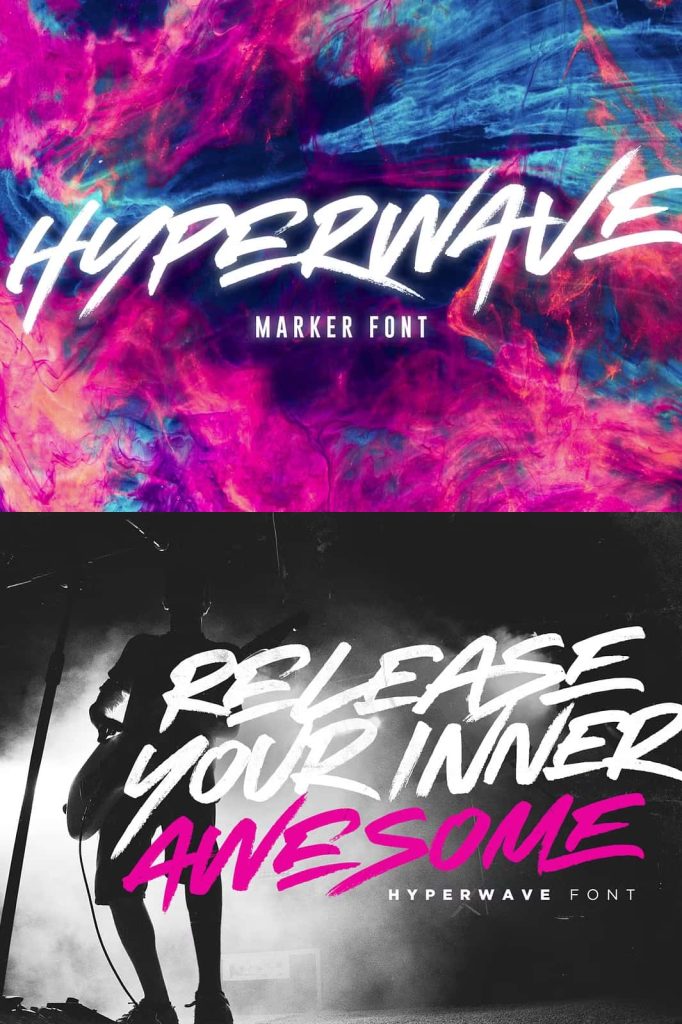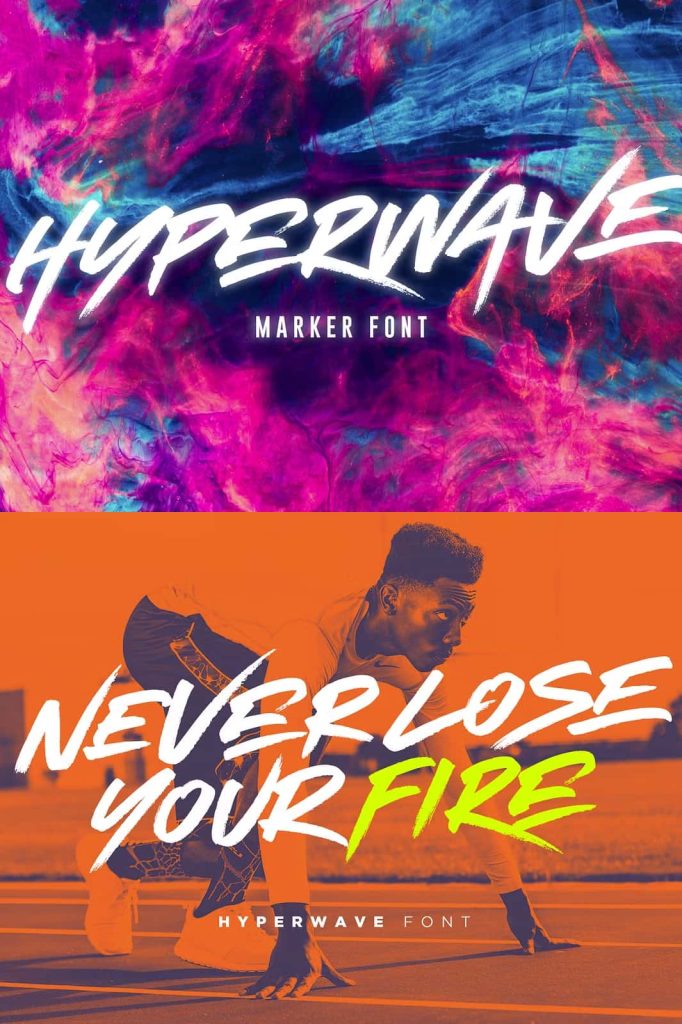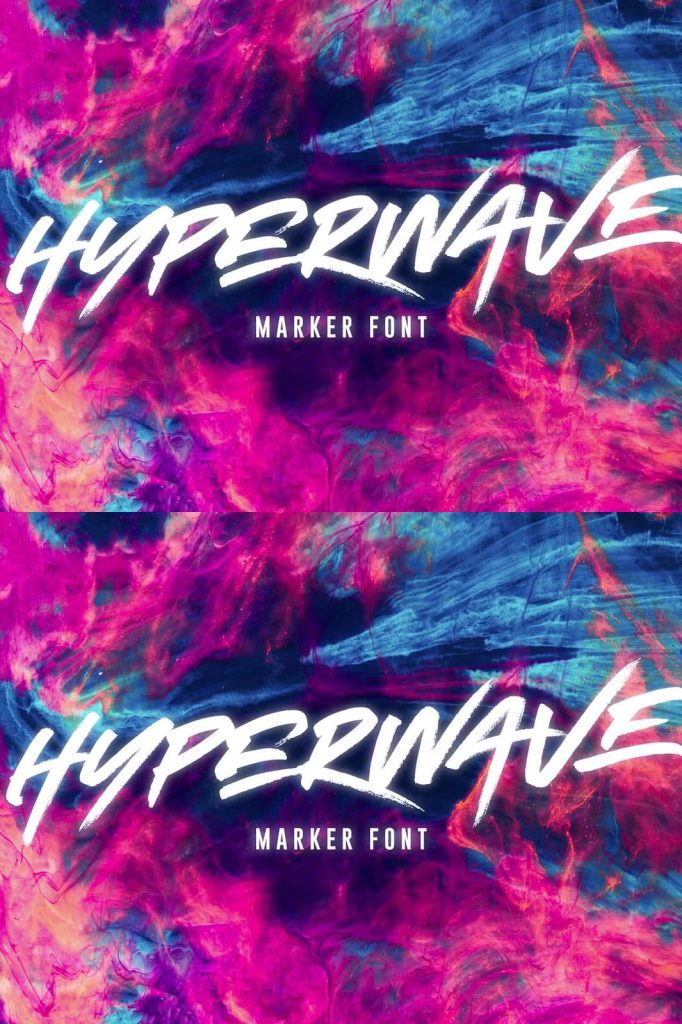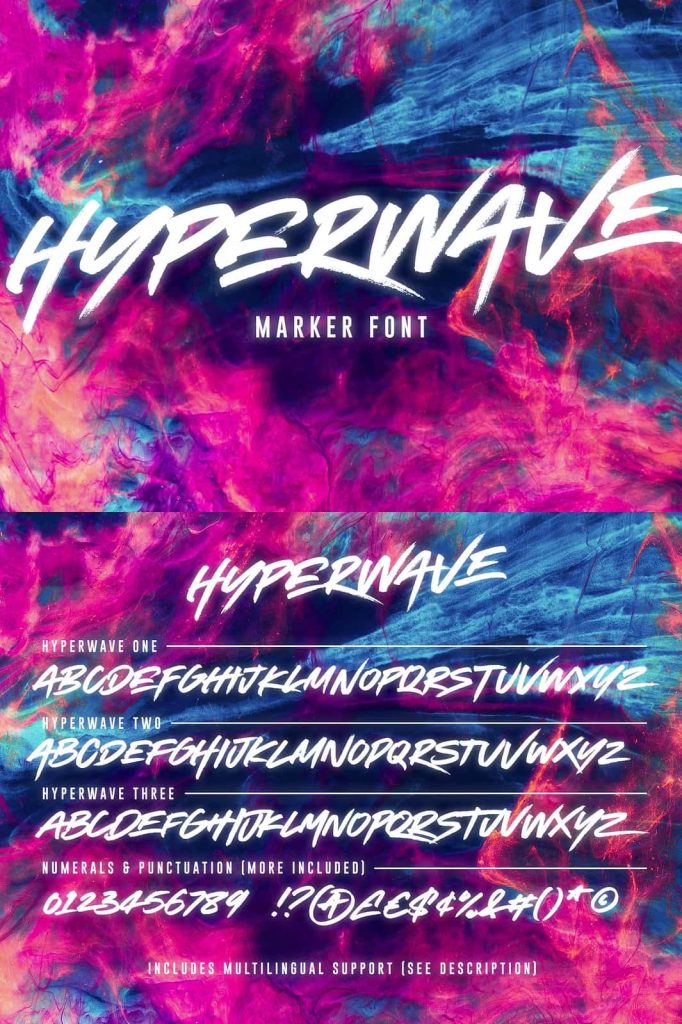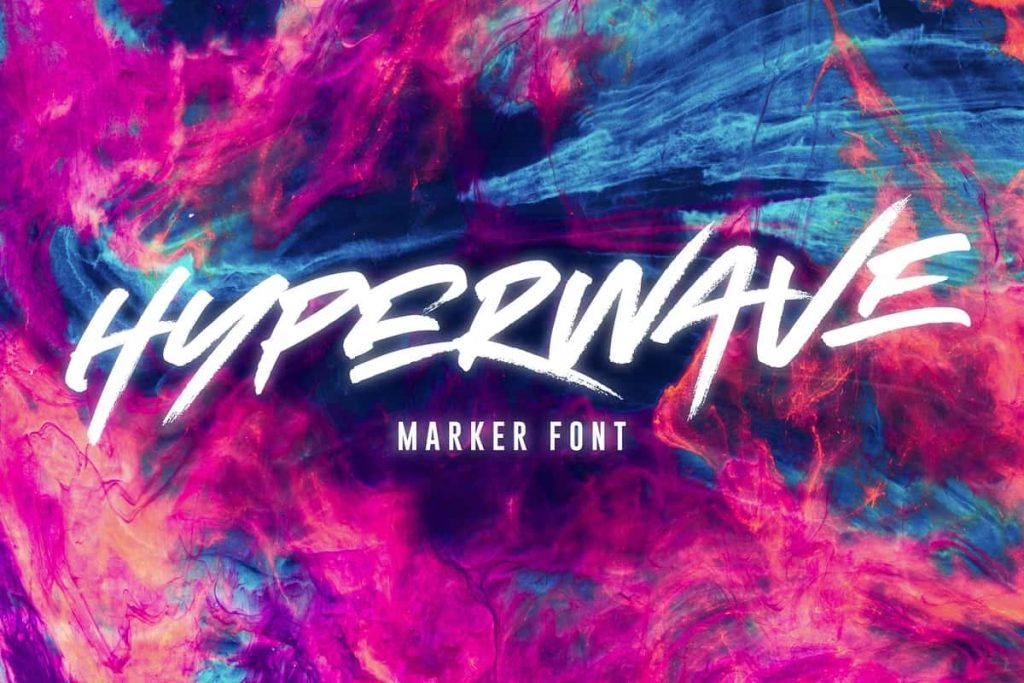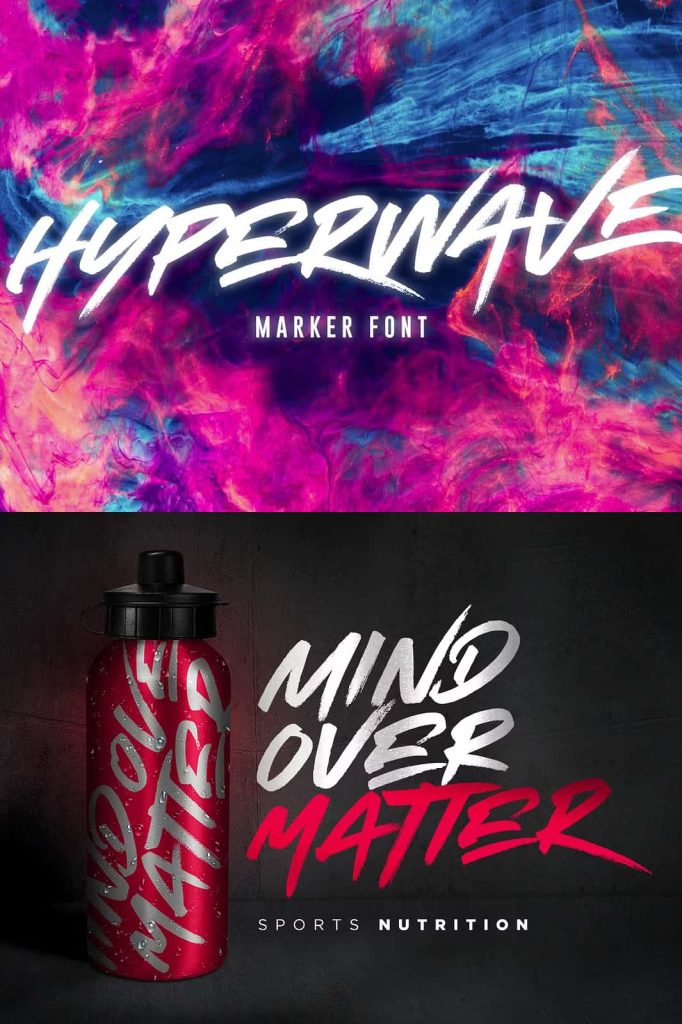
HYPERWAVE Brush Font
HYPERWAVE is an energetic brush font created for designers who want to bring speed, attitude, and expressive handwritten energy into their projects. Built around fast brush strokes and bold visual movement, this dynamic typeface turns ordinary words into powerful graphic statements. Its sharp personality makes it an excellent choice for creative work that needs to communicate confidence, action, youth, and unmistakable character.
HYPERWAVE includes three sets of each letter, giving designers multiple ways to shape their typography. Each set features distinctive brush variations that capture the natural movement of hand-painted lettering. Instead of repeating identical characters throughout a word, you can switch between alternatives to create a more authentic and spontaneous appearance.
From logos and brand imagery to handwritten quotes, product packaging, merchandise, music artwork, and social media posts, HYPERWAVE delivers the visual impact needed to make your message stand out. Its expressive brush style works especially well when typography becomes the main graphic element of the composition.
Energetic Brush Lettering with Sharp Attitude
HYPERWAVE draws its personality from fast, expressive brush lettering. The strokes create a sense of movement that makes the typeface feel active and energetic. This quality allows designers to communicate excitement without relying on complicated graphic effects.
The sharp attitude of the font gives it a strong contemporary edge. It can support bold streetwear graphics, energetic music artwork, sports-inspired branding, creative advertising, and youth-focused campaigns. At the same time, its handcrafted construction keeps the lettering personal and expressive.
Three Sets of Distinctive Letterforms
HYPERWAVE provides three sets of each letter, giving you more control over the appearance of your typography. Each set introduces distinctive brush variations that reflect the natural inconsistencies of hand-painted lettering. These differences help you avoid repetitive character patterns and create compositions that feel more organic.
Mixing the three letter sets can make words look as though they were written individually rather than generated digitally. Select alternate characters throughout a headline, logo, or quote to create a more authentic handwritten rhythm. This feature gives HYPERWAVE an important advantage for designers who want their lettering to feel spontaneous and energetic.
Create Natural Brush Compositions
When working with expressive fonts, variation can make a major difference. Repeating the same letterform can make a handwritten design feel mechanical, while alternating between different versions creates a more natural appearance. HYPERWAVE makes this process easier by providing multiple character options for each letter.
Use the variations selectively rather than changing every character. Highlight key letters, alternate repeated characters, or create a deliberately irregular rhythm. These small adjustments can give logos, headlines, and merchandise designs a more convincing hand-painted personality.
Perfect for Bold Logo Design
HYPERWAVE works exceptionally well for logos that need to communicate energy and confidence. Its strong brush strokes can transform a short brand name into an instantly recognizable visual mark. The expressive lettering creates a sense of movement, making it particularly effective for brands associated with music, fashion, sports, entertainment, creative culture, and youth-oriented products.
Use HYPERWAVE to build wordmarks, logo concepts, campaign titles, and brand slogans. Combine the font with simple symbols or graphic elements to create a complete identity. You can also experiment with alternate characters to make the final wordmark more distinctive and personal.
Make Brand Imagery More Dynamic
Beyond logos, HYPERWAVE can strengthen an entire brand’s visual language. Use the font for campaign headlines, advertisements, social media graphics, promotional banners, and branded illustrations. Its fast brush strokes naturally create movement, helping static designs feel more energetic.
The font works particularly well when paired with photography, bold colors, textured backgrounds, or modern graphic compositions. You can use large lettering as the central visual element or integrate smaller phrases into illustrations and promotional artwork.
Powerful Typography for Product Packaging
Packaging designers can use HYPERWAVE to make product names and promotional messages more noticeable. Its energetic brush style can create a strong shelf presence and give products a youthful, handmade, or rebellious personality.
Use it for beverage labels, food packaging, clothing products, beauty products, accessories, specialty goods, and creative merchandise. The three letter sets also allow you to customize prominent words and create a less predictable visual appearance.
From logo designs and brand imagery to handwritten quotes, packaging, merchandise, music projects, and social media posts, HYPERWAVE brings a bold handcrafted energy to every application. Use its character variations to avoid repetitive lettering, experiment with expressive layouts, and create typography that feels genuinely distinctive.
If your project needs a brush font with speed, attitude, and creative impact, HYPERWAVE provides the expressive tools to make your message stand out.